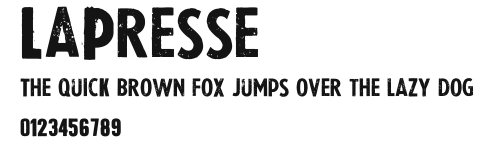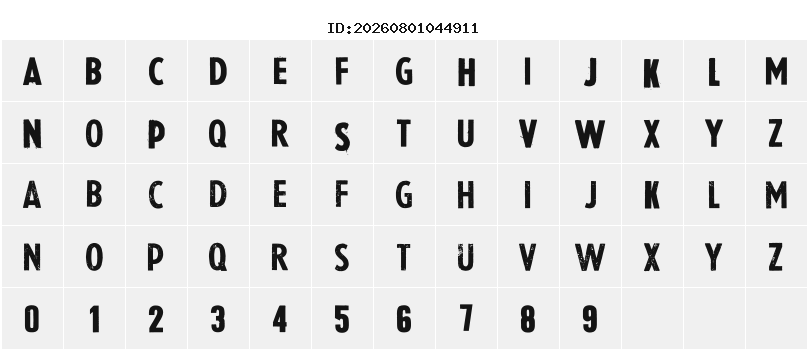
• Font Name: LaPresse
• Description: This font was created using Scanahand from High-Logic.com
About LaPresse.ttf
LaPresse.ttf is a modern, elegant sans-serif font designed for ultimate readability and visual harmony. Perfect for branding, headlines, web design, and print materials.